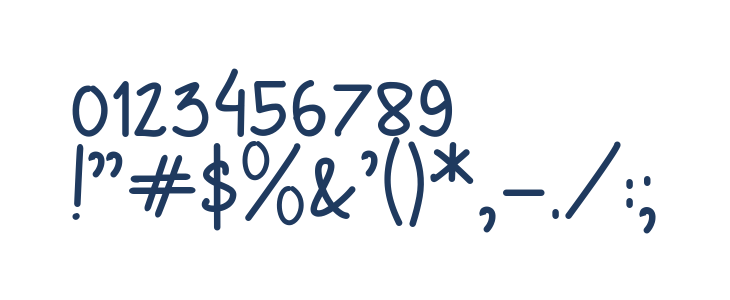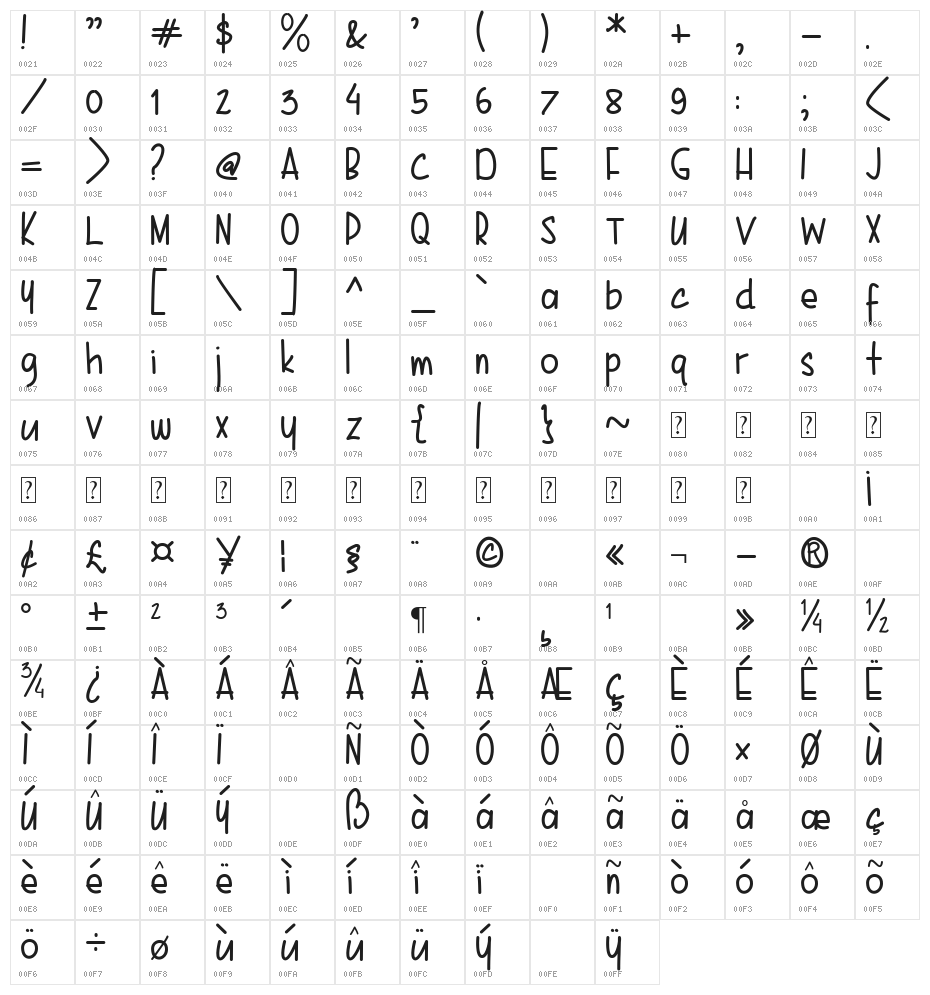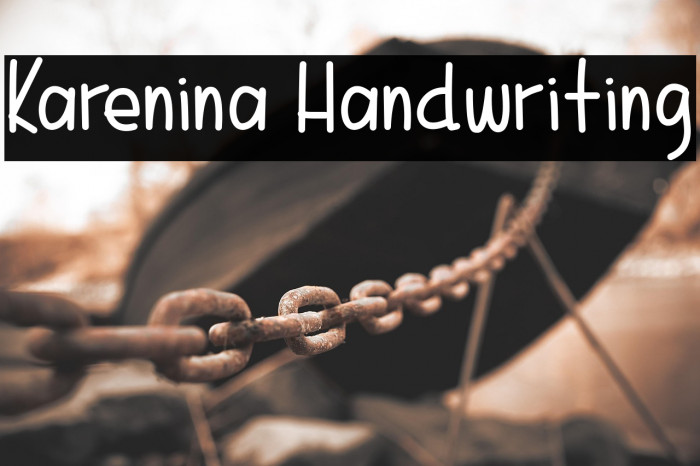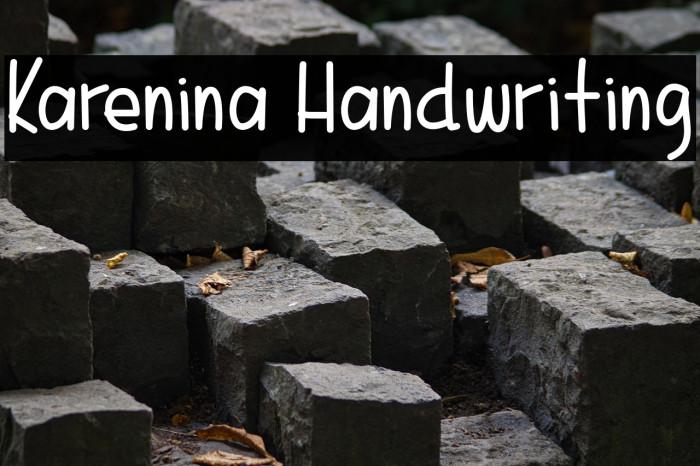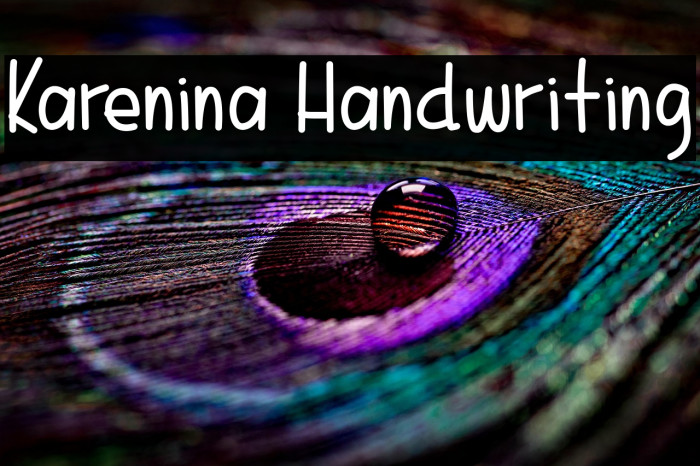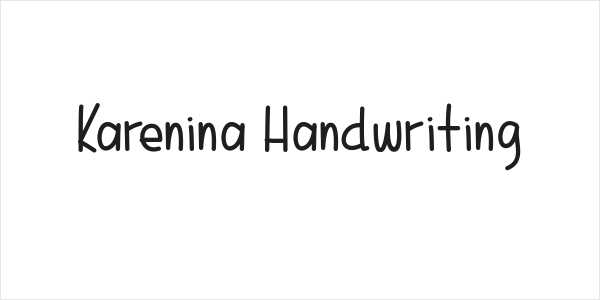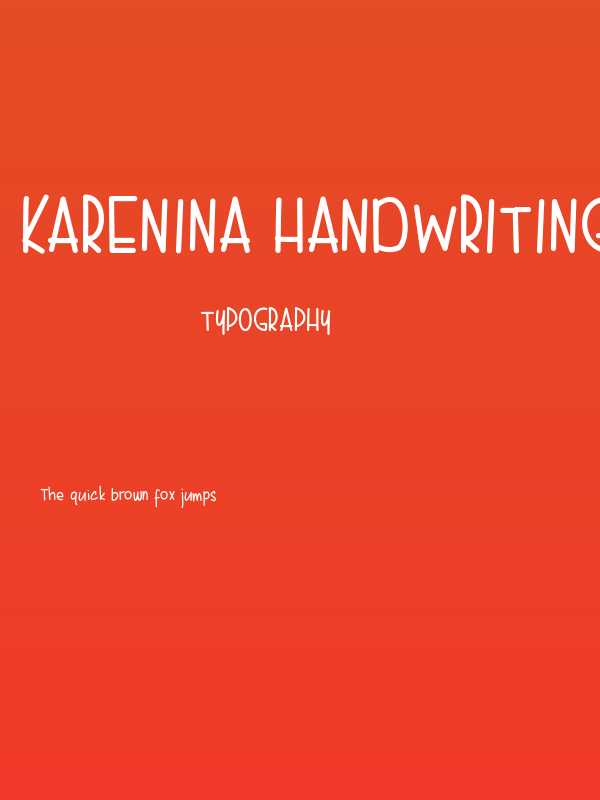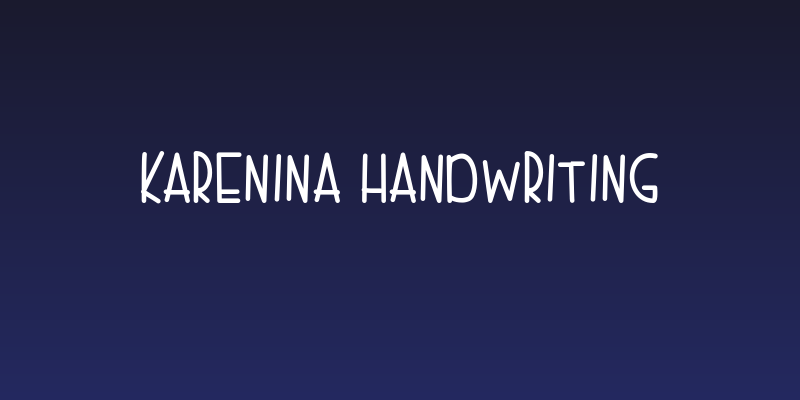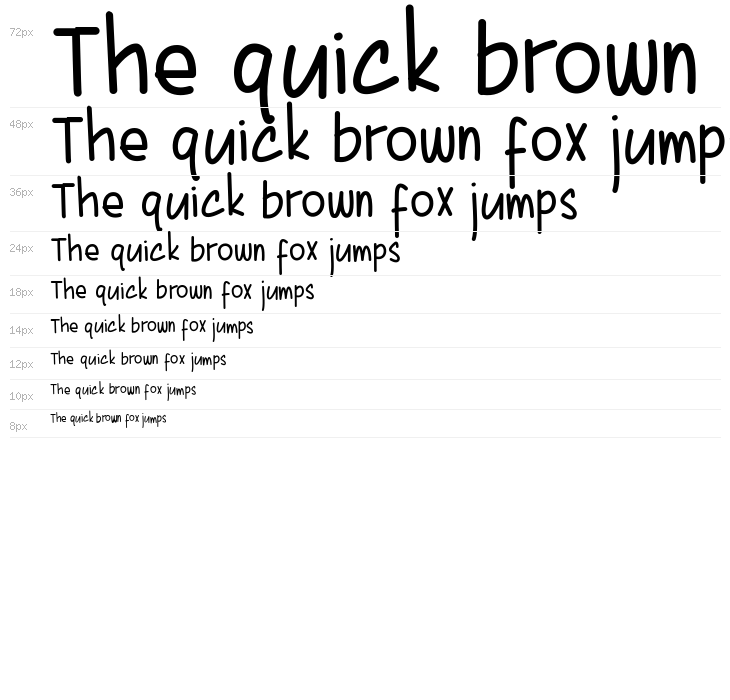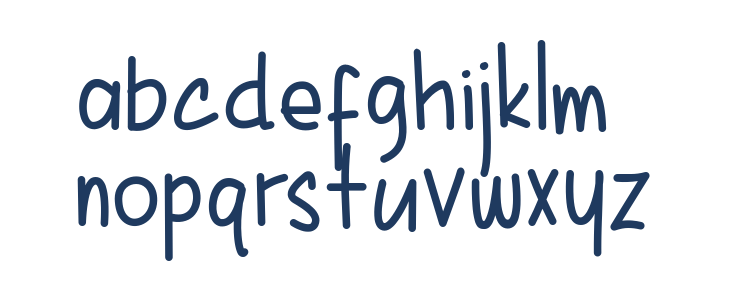
Karenina Handwriting Font
Karenina Handwriting Description
This font exudes a playful and casual handwritten style, characterized by its smooth, rounded edges and consistent stroke width. The letters are slightly slanted, giving a dynamic and lively appearance. The uppercase and lowercase letters maintain a harmonious balance, with the lowercase letters exhibiting a friendly, approachable look. The numerals and special characters are designed to match the overall aesthetic, ensuring a cohesive appearance throughout. This font is ideal for projects that require a personal touch, such as invitations, greeting cards, or informal branding.
| Use Case | Headlines, Informal text, Personal projects |
| Proposed Projects | Ideal for invitations, greeting cards, personal branding, and informal communication. |